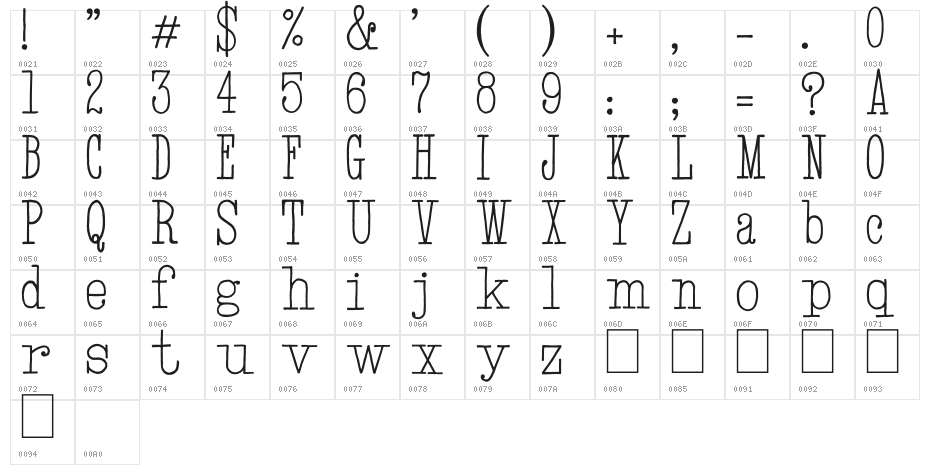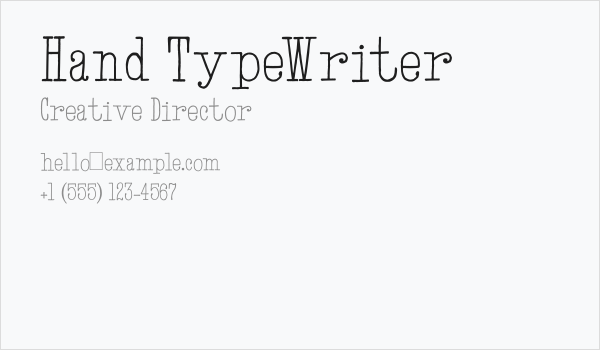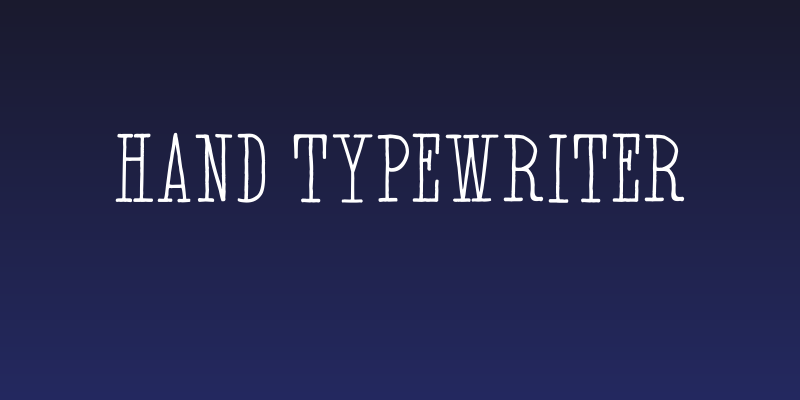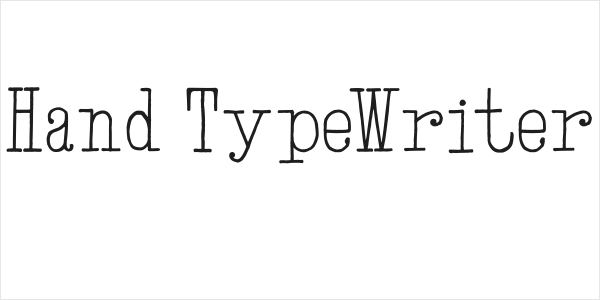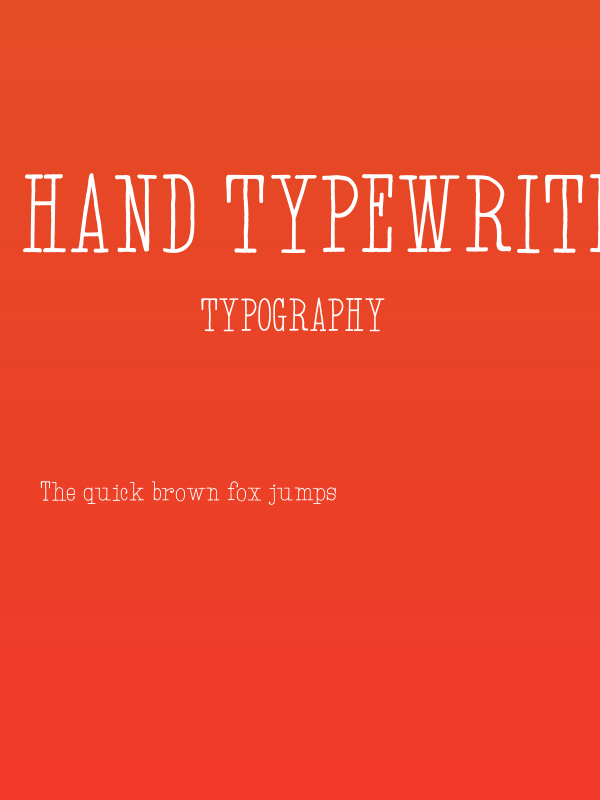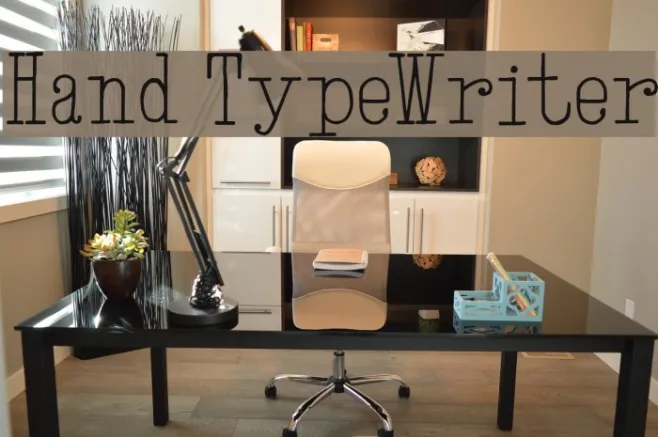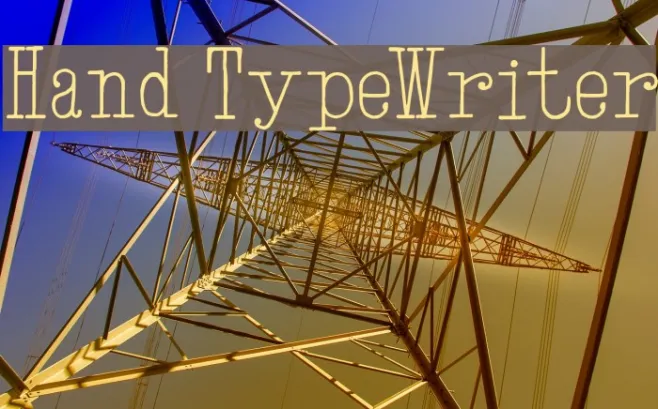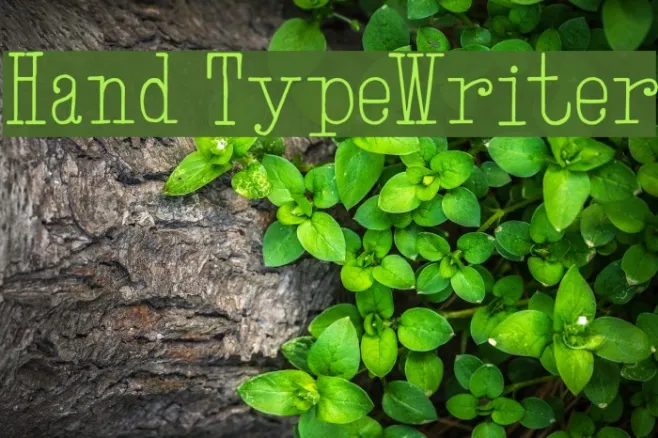
Hand TypeWriter Font
Hand TypeWriter Description
This font exudes a vintage charm reminiscent of classic typewriter text. Each character is crafted with a slightly irregular, hand-drawn quality, giving it an authentic, nostalgic feel. The uppercase and lowercase letters maintain a consistent height, with narrow, elongated forms that emphasize verticality. Numbers and special characters follow the same aesthetic, with subtle variations that enhance the hand-crafted appearance. The font's thin strokes and occasional imperfections add to its retro appeal, making it ideal for projects that require a touch of old-world elegance.
| Use Case | Headlines, Logos, Decorative text |
| Proposed Projects | Ideal for vintage-themed designs, stationery, book covers, and retro branding projects. |